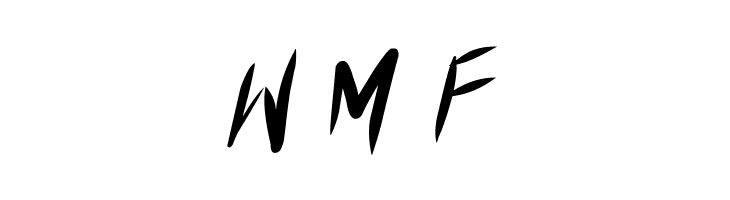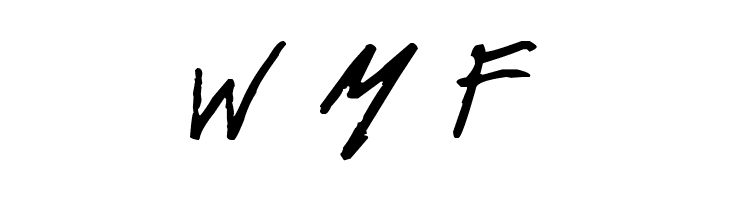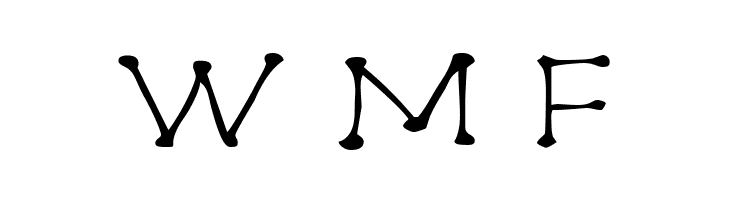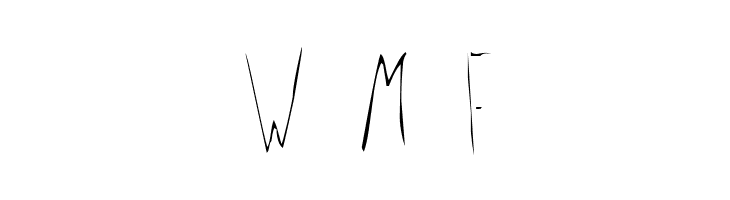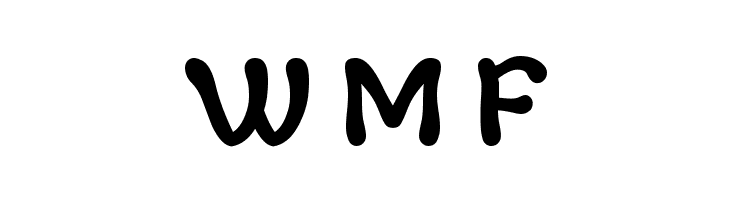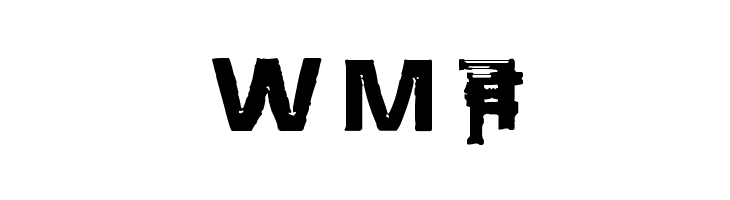
( Fonts by Press Gang Studios - Andeh Pinkard - www.pressgang-studios.com )
A bold, jagged, and distressed decorative font with a chaotic and intense style.
( Fonts by Press Gang Studios - Andeh Pinkard - www.pressgang-studios.com )
A bold, italicized font with a dynamic, graffiti-inspired style.
( Fonts by Press Gang Studios - Andeh Pinkard - www.pressgang-studios.com )
A bold, graffiti-inspired font with sharp, angular strokes and a rebellious flair.
( Fonts by Press Gang Studios - Andeh Pinkard - www.pressgang-studios.com )
A bold, italic, and dynamic font with an edgy, expressive style.
( Fonts by Press Gang Studios - Andeh Pinkard - www.pressgang-studios.com )
A bold, hand-drawn font with sharp, angular strokes and a dynamic, graffiti-like style.
( Fonts by Andy Krahling - Sunwalk )
A playful, dotted-line font with bold, rounded characters.
( Fonts by Andy Krahling - Sunwalk )
A whimsical, hand-drawn font with elongated, narrow characters and uneven strokes.